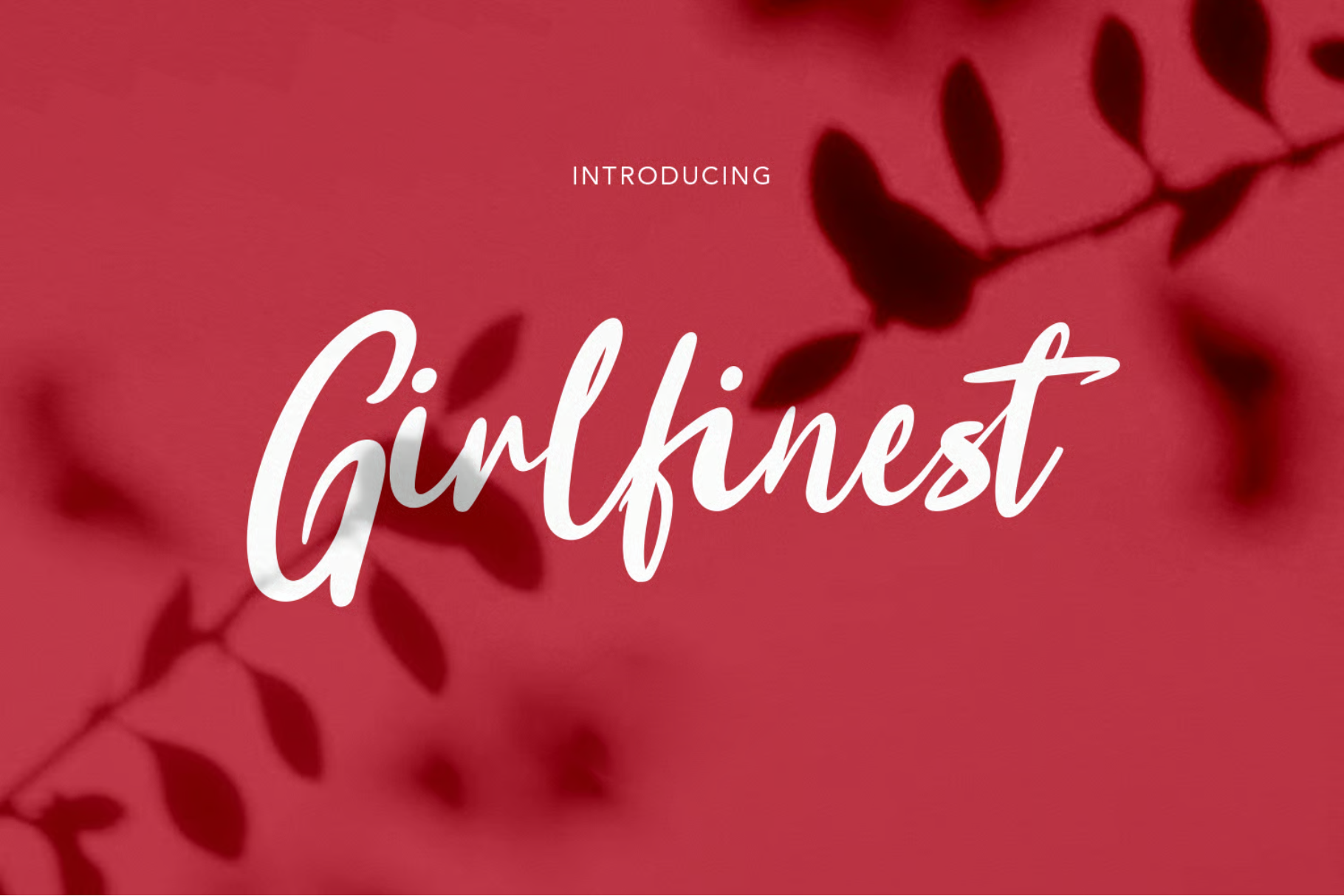
Girlfinest Script Font
Girlfinest is casual script font, with clean bold stroke, slanted and fun character. It has Opentype features ligatures of character, To give you an extra creative work. Girlfinest font support multilingual more than 100+ language. This font is good for logo design, Social media, Movie Titles, Books Titles, a short text even a long text letter and good for your secondary text font with sans or serif. Make a stunning work with Girlfinest font.